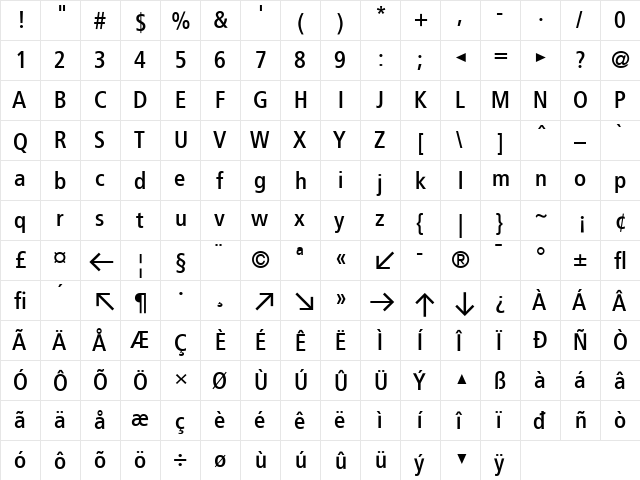
TransitFront Regular
| Foundry | BVG und MetaDesign published by FontShop International |
Design Context for TransitFront Typeface
TransitFront offers clean, dependable letterforms without strong stylistic allegiance, making it a practical choice for designers who need flexibility.